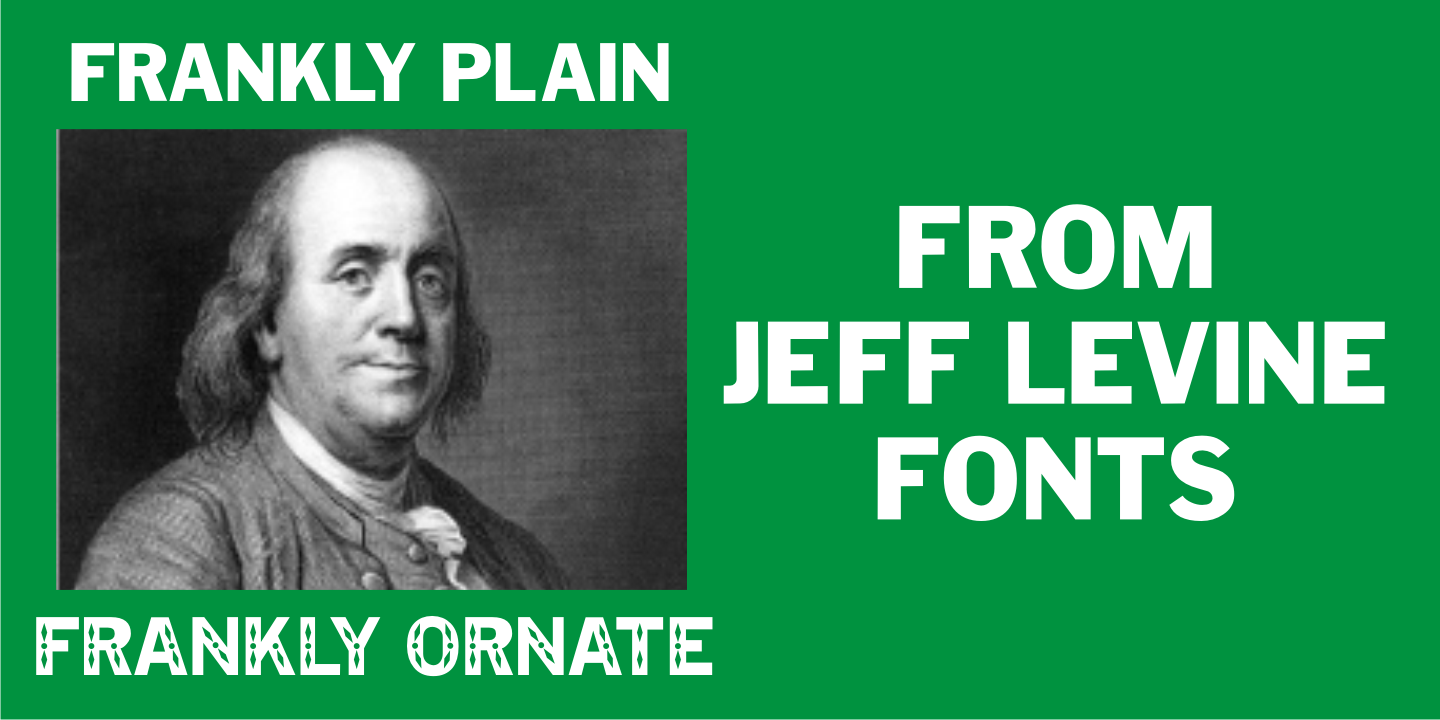
Frankly
Frankly Plain JNL is an all-caps version of the ever-popular Franklin Gothic, while Frankly Ornate JNL adds a decorative embellishment to the letters and numbers.